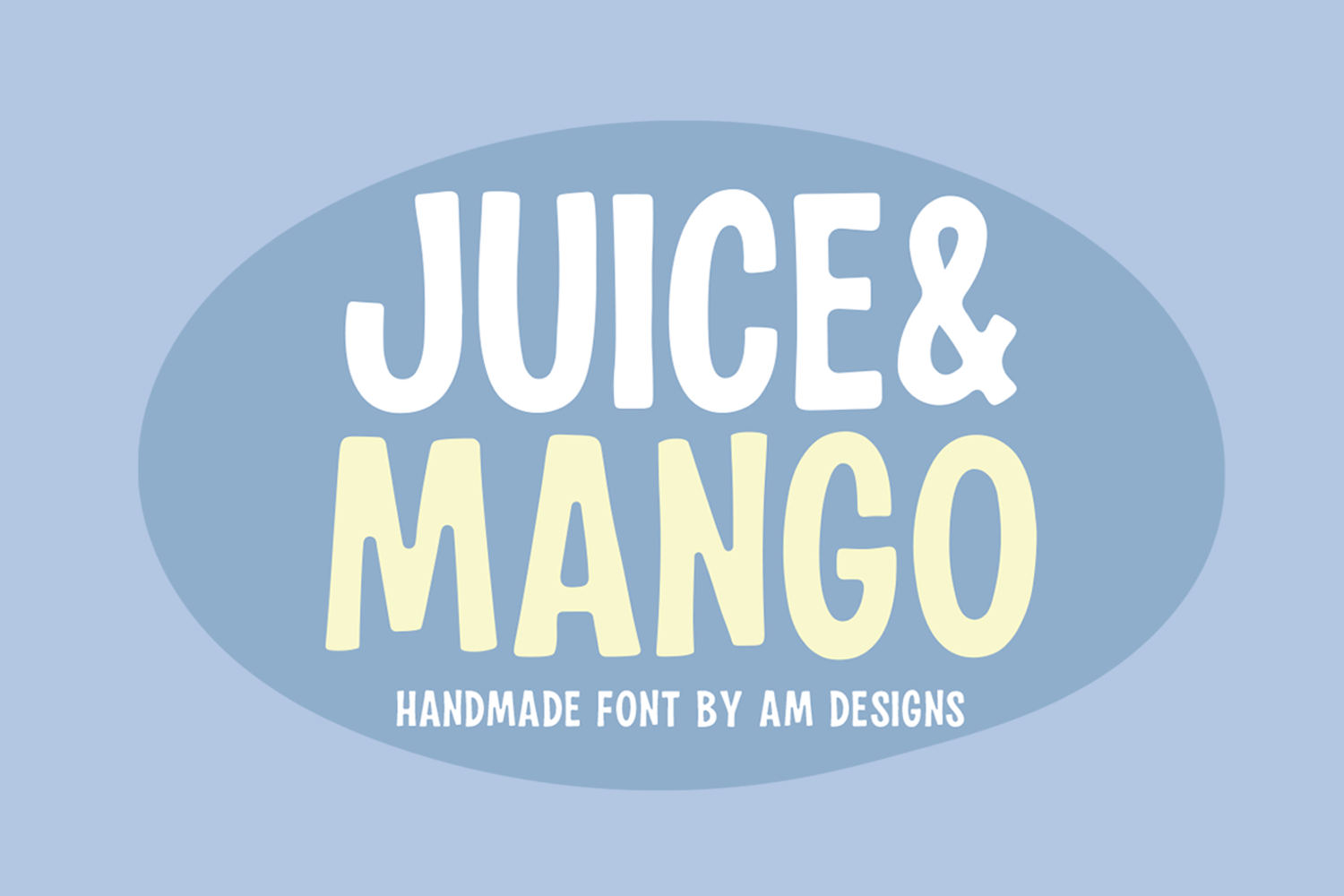
Juice & Mango Font
Juice & Mango
Juice & Mango is a display font exuding lighthearted charm in every flourish of its handwritten style. Its letters, resembling a hand-drawn work of art, showcase an irregular yet gentle silhouette, simulating an exhilarating waft of fresh summer breeze.